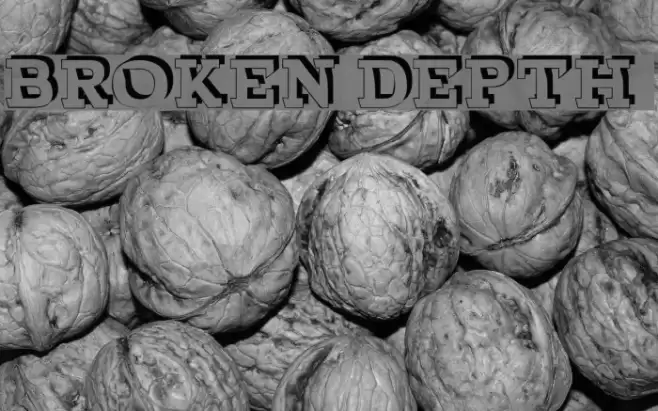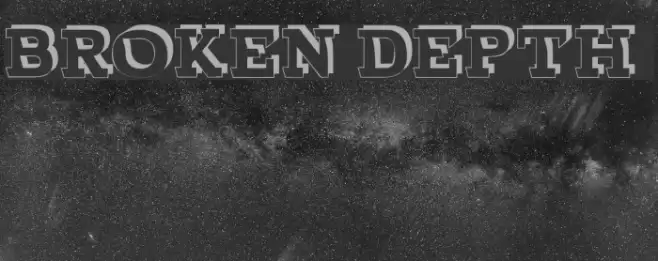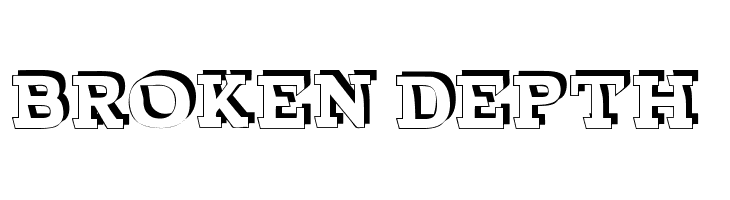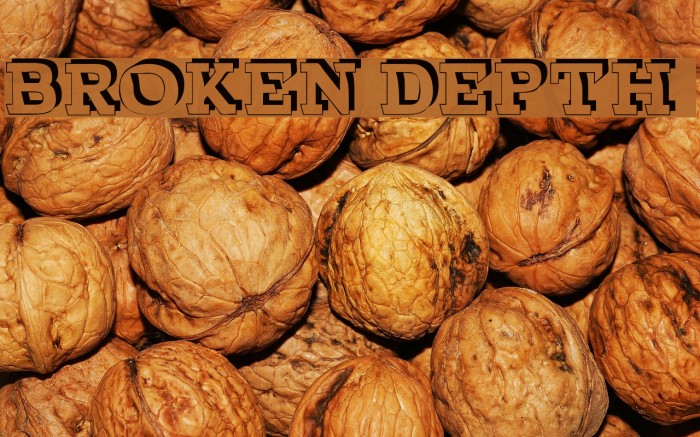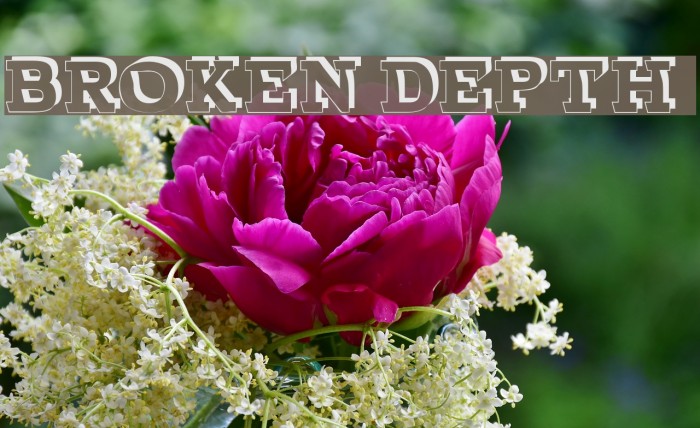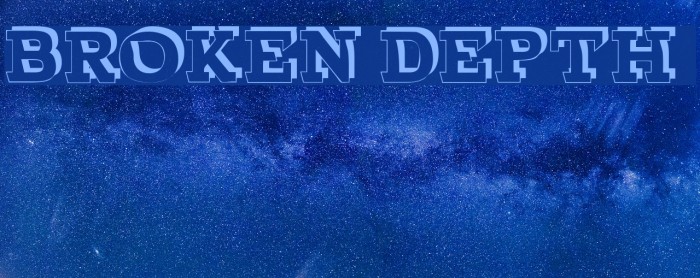
BROKEN DEPTH demo Font
BROKEN DEPTH demo Description
This font features a bold and striking design with a three-dimensional effect, giving each letter a sense of depth and shadow. The uppercase letters are crafted with strong, angular lines and a solid structure, creating a sense of stability and impact. The font's unique style is characterized by its layered appearance, where the shadowing adds a dynamic and eye-catching element. This makes it particularly suitable for projects that require a bold statement or a modern, edgy look. The font's design is both decorative and functional, making it versatile for various creative applications.
A bold, three-dimensional font with a striking, layered design from Uncategorized fonts.
- Proposed Projects: Ideal for headlines, posters, logos, and any design needing a bold, impactful statement.